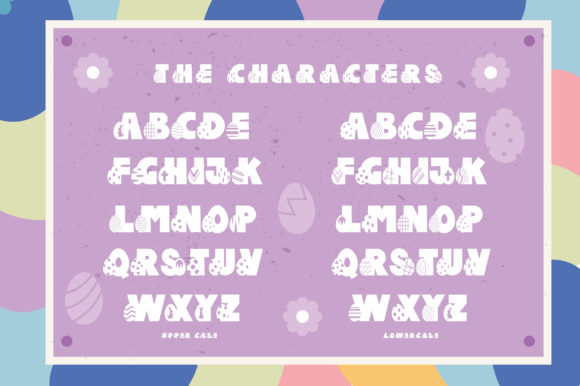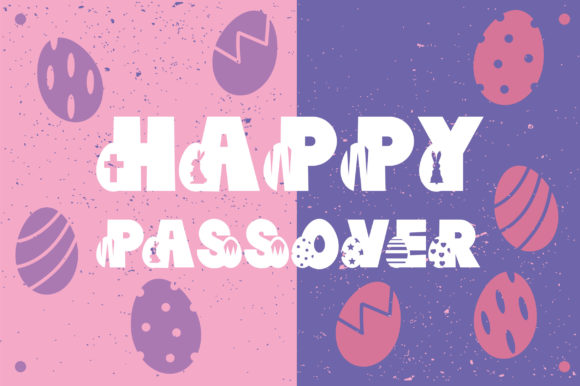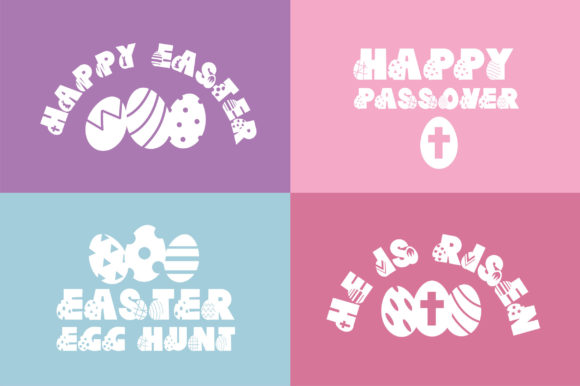
Eastery Font: The Perfect Addition to Your Easter Designs
Are you looking for a unique and bold font to make your Easter designs stand out? Look no further than Eastery Font! This decorative font is specifically designed with an Easter theme, making it perfect for creating posters, logos, titles, and many more designs. In this article, we’ll take a closer look at Eastery Font and explore its features, benefits, and uses.
What is Eastery Font?
Eastery Font is a bold, unique decorative font that is designed to add a touch of Easter charm to your designs. The font features a playful and whimsical style, with letters and symbols that are reminiscent of Easter eggs, bunnies, and other Easter-themed elements. The font is perfect for designers, crafters, and anyone looking to create eye-catching Easter designs.
Features of Eastery Font
Eastery Font comes with a range of features that make it perfect for Easter designs. Some of its key features include:
- Unique and bold design: Eastery Font features a unique and bold design that is sure to grab attention.
- Easter-themed elements: The font includes Easter-themed elements, such as Easter eggs, bunnies, and other symbols.
- Playful and whimsical style: The font has a playful and whimsical style that is perfect for Easter designs.
Benefits of Using Eastery Font
There are many benefits to using Eastery Font for your Easter designs. Some of the benefits include:
- Stand out designs: Eastery Font is designed to help your designs stand out from the crowd.
- Save time: With Eastery Font, you can create professional-looking Easter designs in just a few minutes.
- Easy to customize: The font is easy to customize, allowing you to create unique designs that match your brand or style.
- Perfect for crafters and designers: Eastery Font is perfect for crafters and designers who want to create unique and eye-catching Easter designs.
Uses of Eastery Font
Eastery Font can be used for a wide range of Easter designs, including:
- Posters: Create eye-catching Easter posters with Eastery Font.
- Logos: Use Eastery Font to create unique and memorable Easter logos.
- Titles: Add a touch of Easter charm to your titles with Eastery Font.
- Social media graphics: Use Eastery Font to create engaging and shareable Easter social media graphics.
- Craft projects: Eastery Font is perfect for craft projects, such as making Easter cards, gift tags, and other DIY crafts.
| Author | Caoca Studio |
Eastery Font is a bold, unique decorative font that is perfect for Easter designs. With its playful and whimsical style, Easter-themed elements, and ease of use, Eastery Font is a must-have for designers, crafters, and anyone looking to create eye-catching Easter designs. Whether you’re creating posters, logos, titles, or social media graphics, Eastery Font is the perfect addition to your Easter designs.